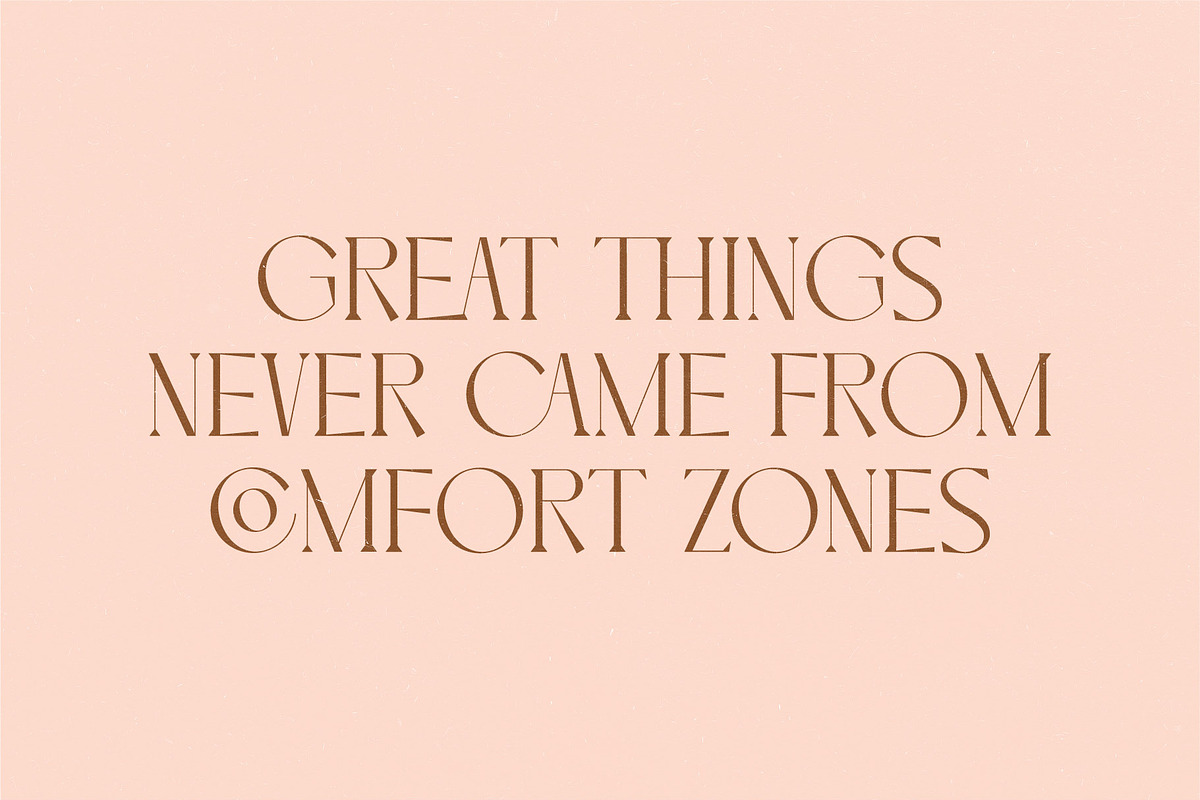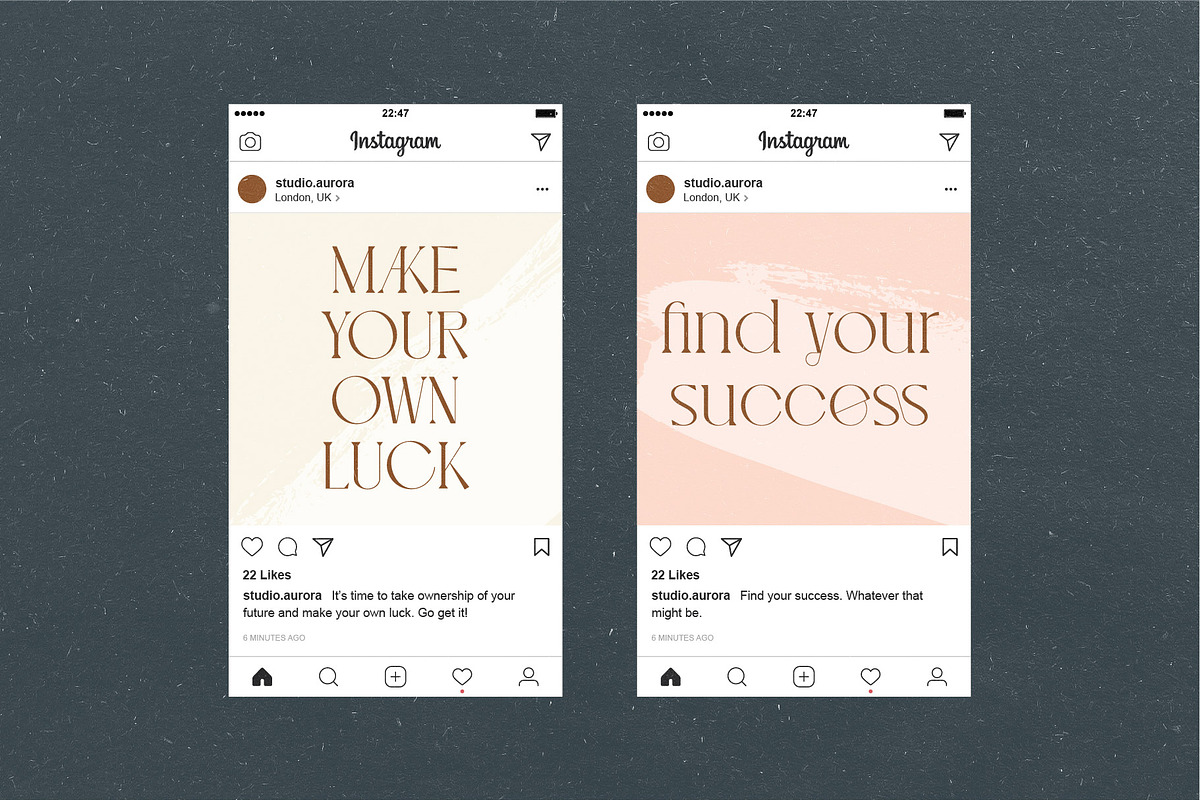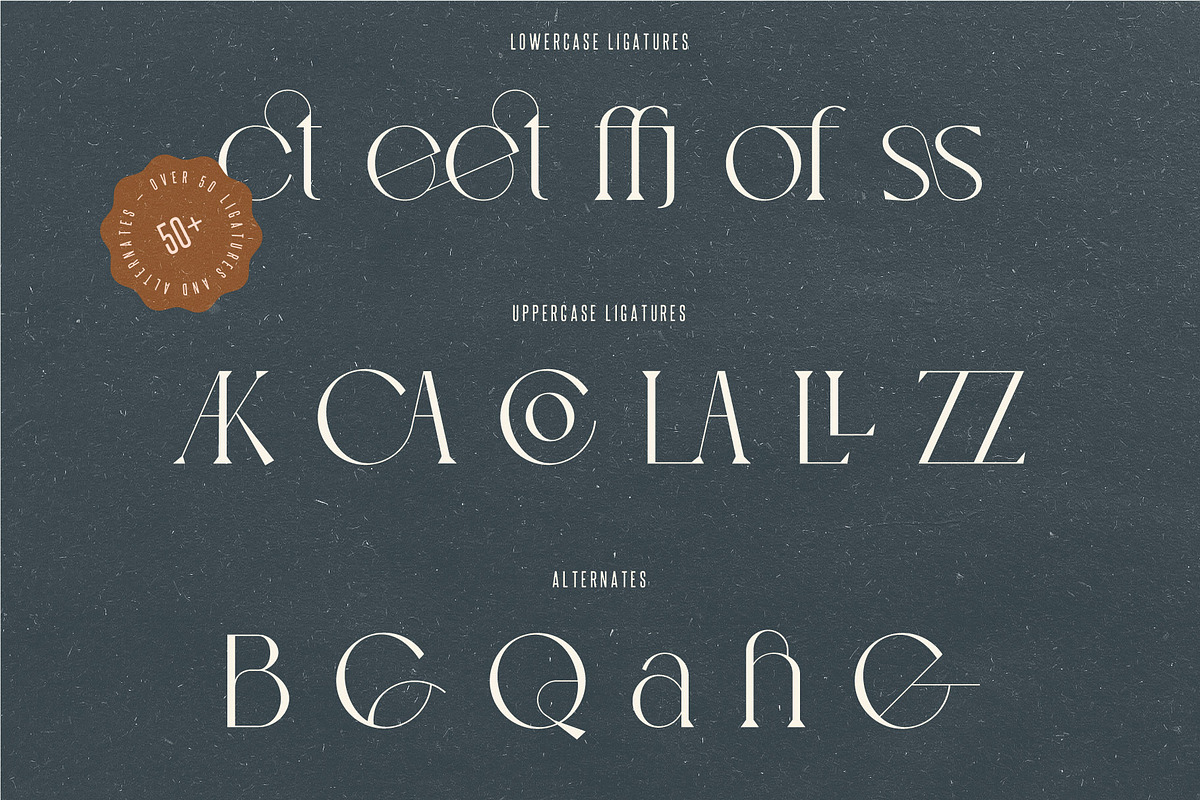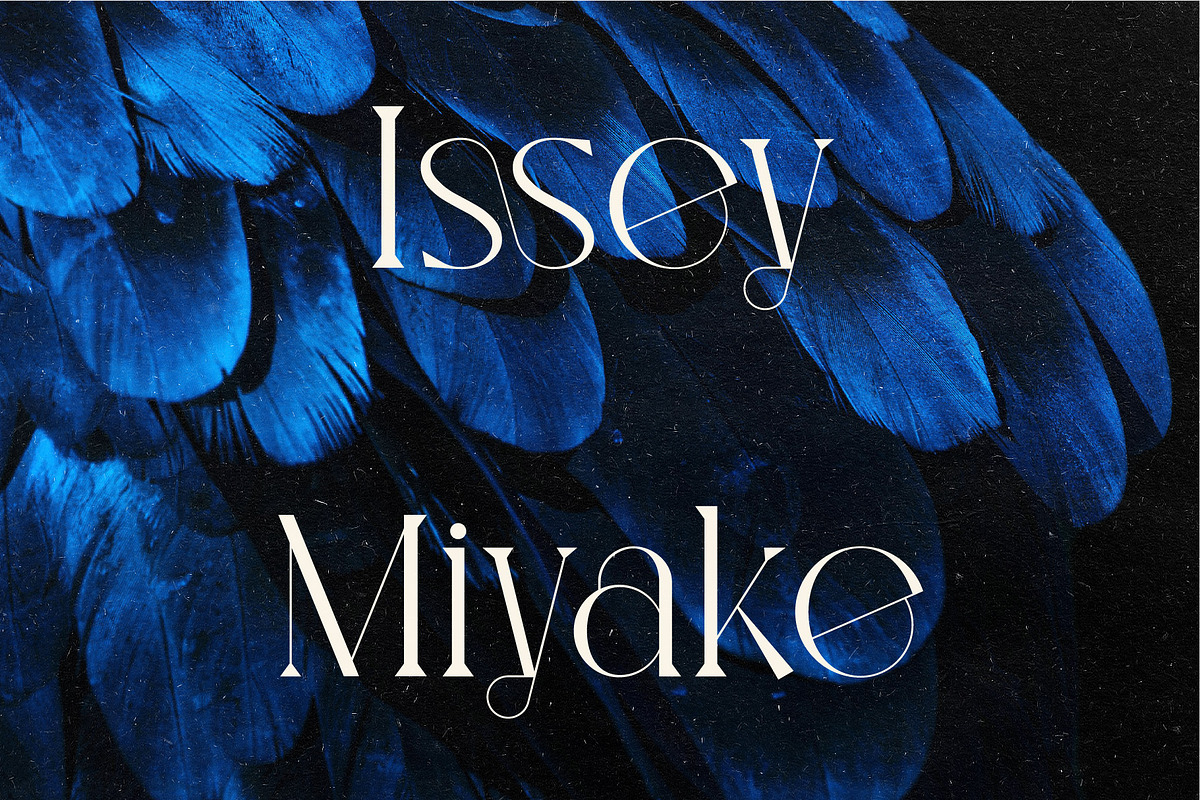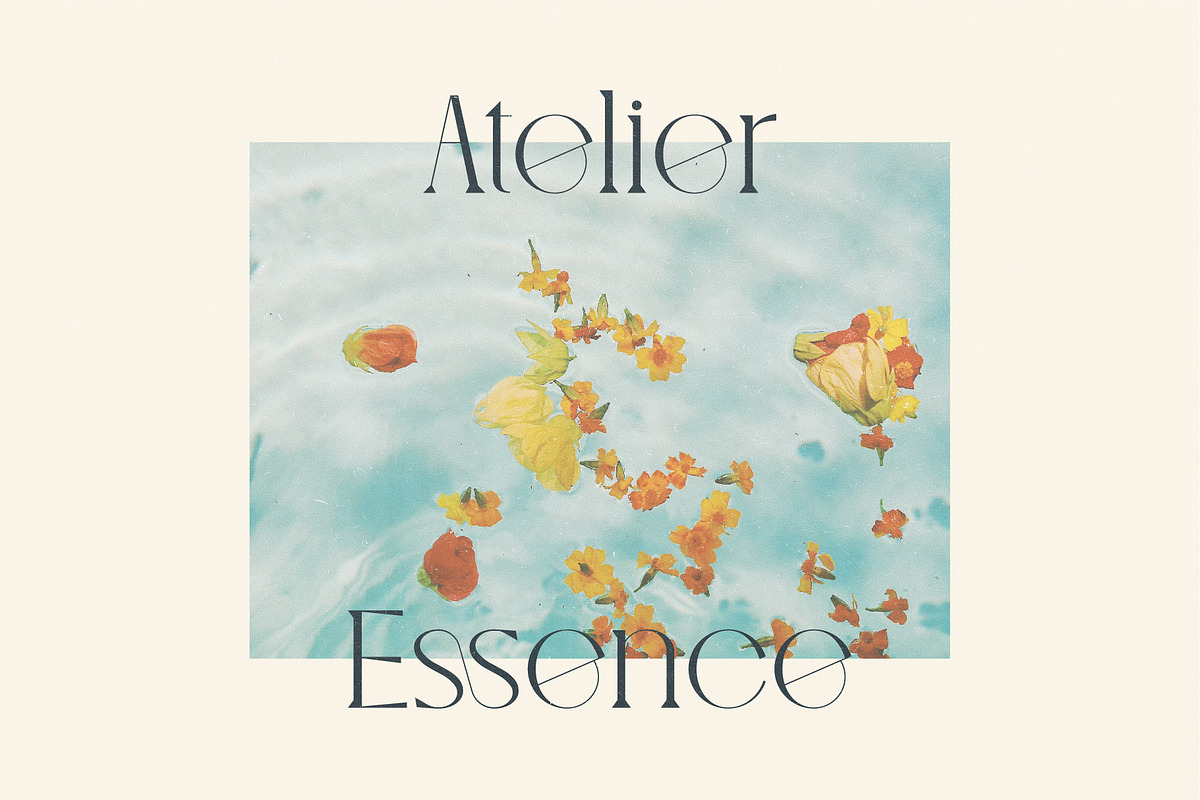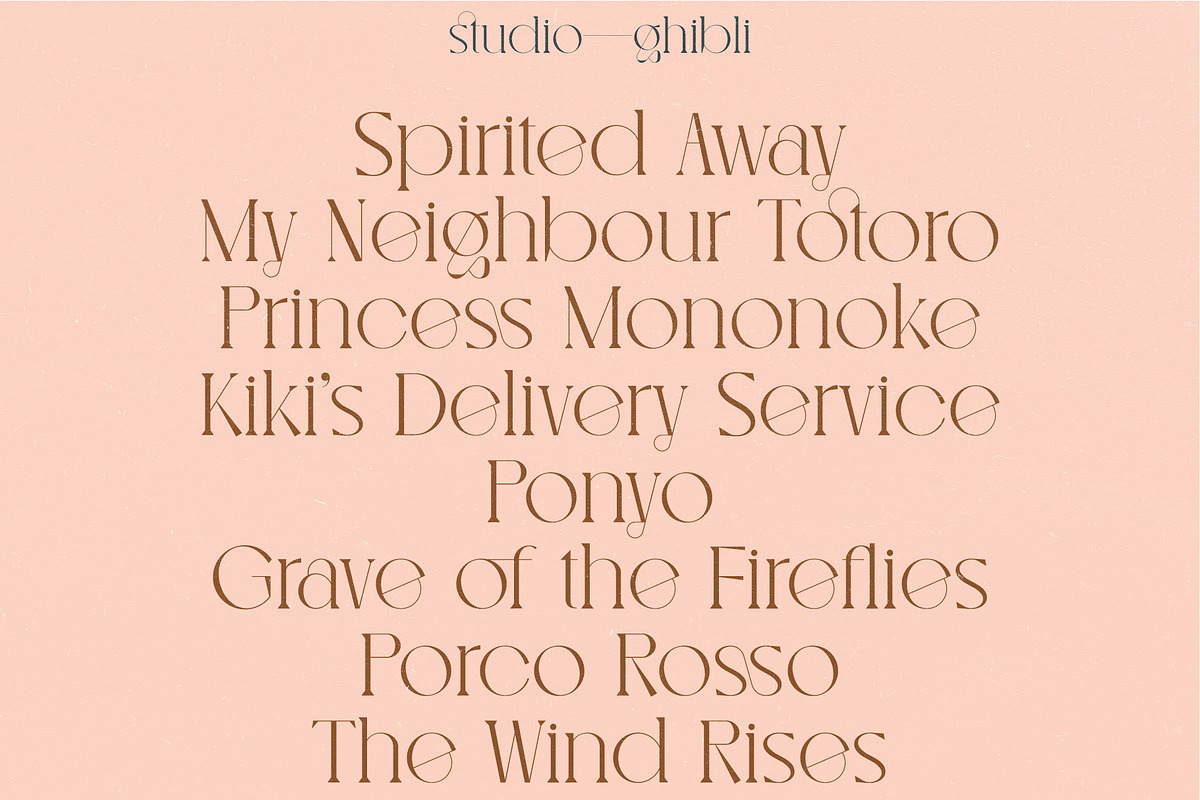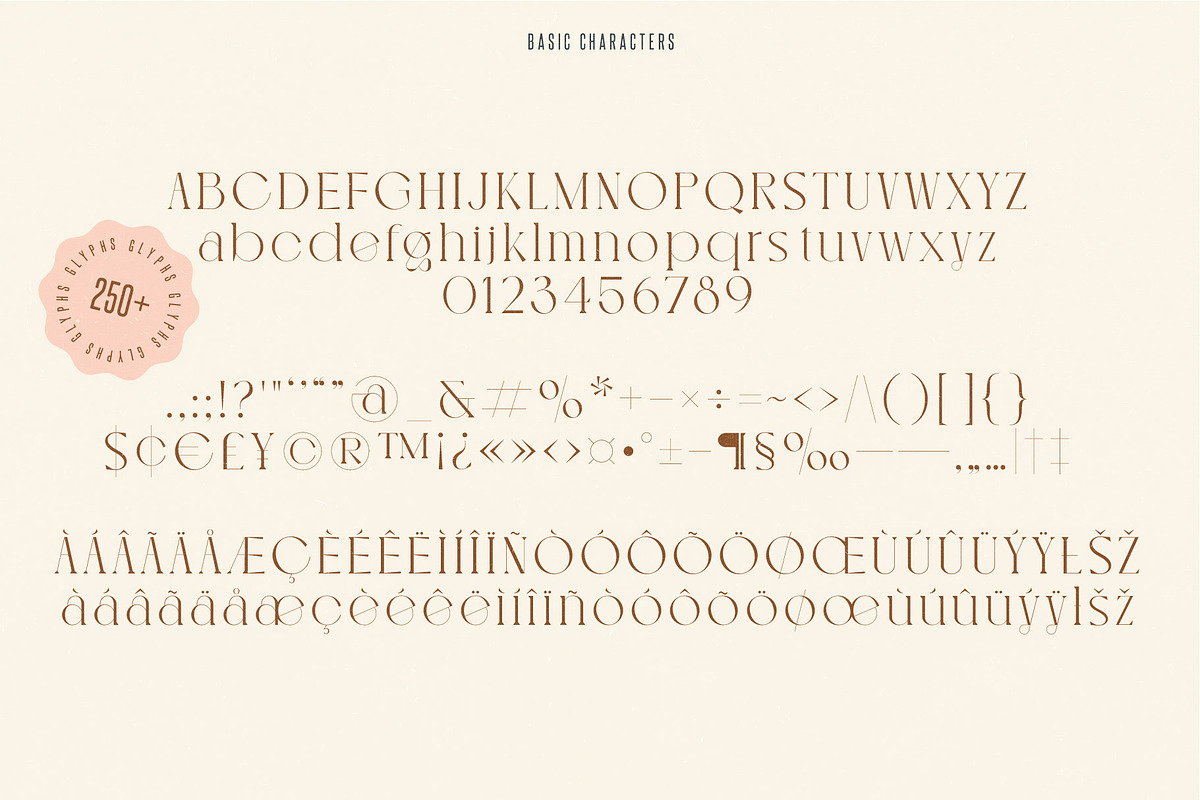
Legion - Ligature Display Serif Font
Welcome! Introducing our new typeface, Legion - A contemporary, sophisticated, and unique serif font that comes full of ligatures and alternate characters perfect for creating variety in your designs.
This is a serif font with display type properties that we recommend using in the following types of work; magazines (titles and layouts), logos and branding, invitations, quotes, blog headers, posters, advertising and body copy.
Language Support: Afrikaans, Albanian, Catalan, Danish, Dutch, English, French, German, Italian Norwegian, Portuguese, Spanish, Swedish and Zulu.
Uppercase and lowercase glyphs
Over 250 glyphs including punctuation and numbers
Unique ligature glyphs
Many alternate characters